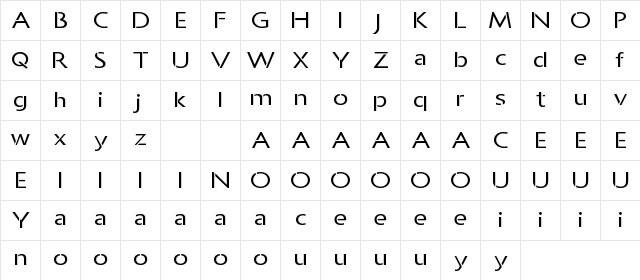
Allcan DEMO Regular
| Foundry | edric studio |
| Designer | Ferri |
Design Context for Allcan DEMO Typeface
Allcan DEMO offers clean, dependable letterforms without strong stylistic allegiance, making it a practical choice for designers who need flexibility.